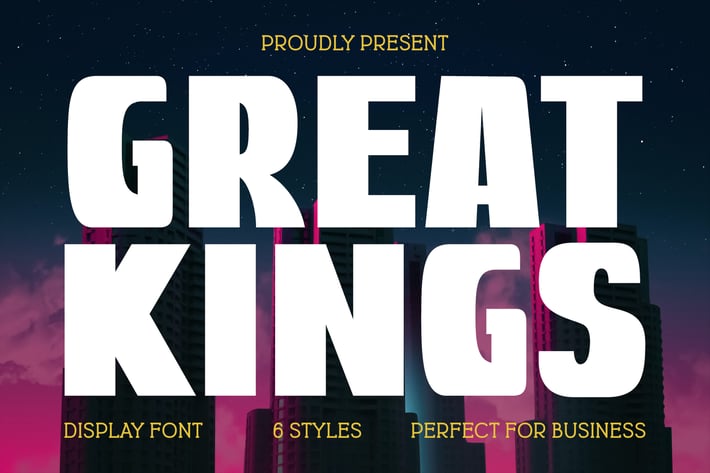
Great Kings Business Font Family
Great Kings is elegant and bold sans serif font. It can easily be matched to an incredibly large set of projects, so add it to your creative ideas and notice how it makes them stand out!